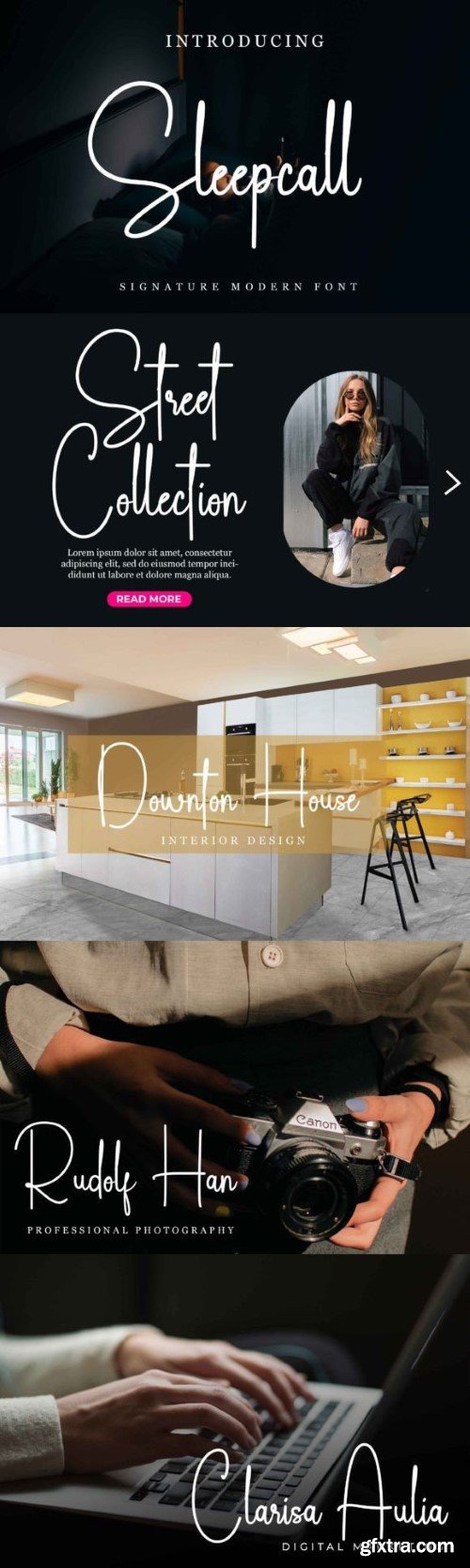
Sleepcall is a modern signature font that is elegant and cool. suitable for photography watermarks, logos, branding, greeting cards and many more. This font is PUA encoded which means you can access all of the amazing glyphs and ligature characters with ease!